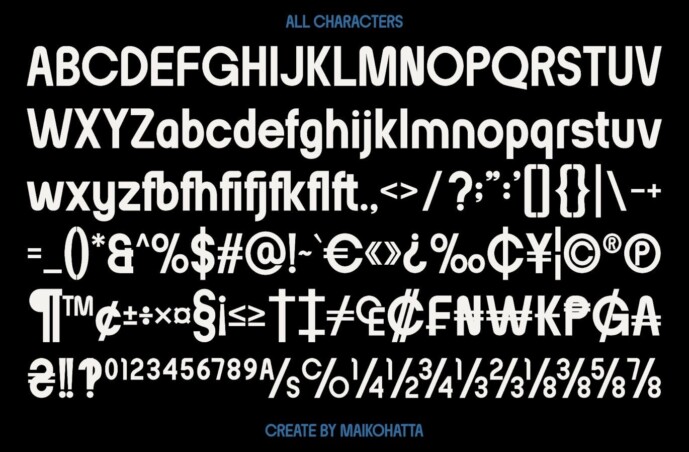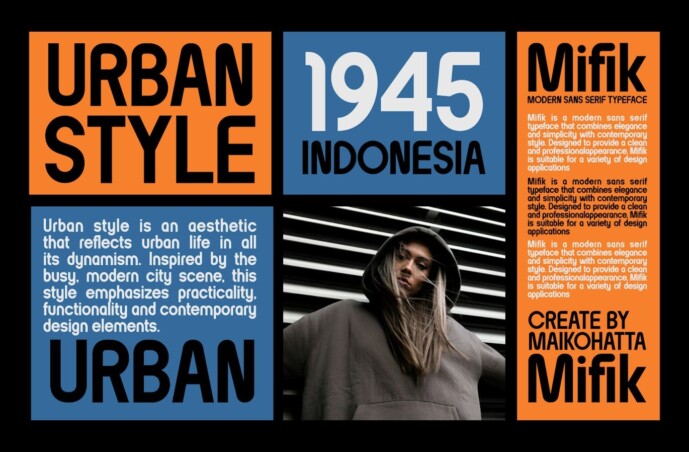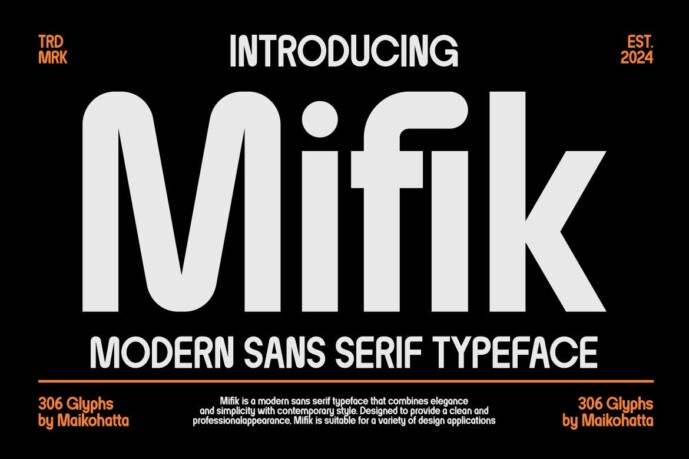
Mifik Font
Mifik Font – Modern Sans Serif Typeface. This font is a very flexible choice and can be used in a variety of design contexts. Its ability to provide a clean, professional and contemporary look, its simplicity and visual appeal make it an ideal font for use in the world of graphic design and modern typography.